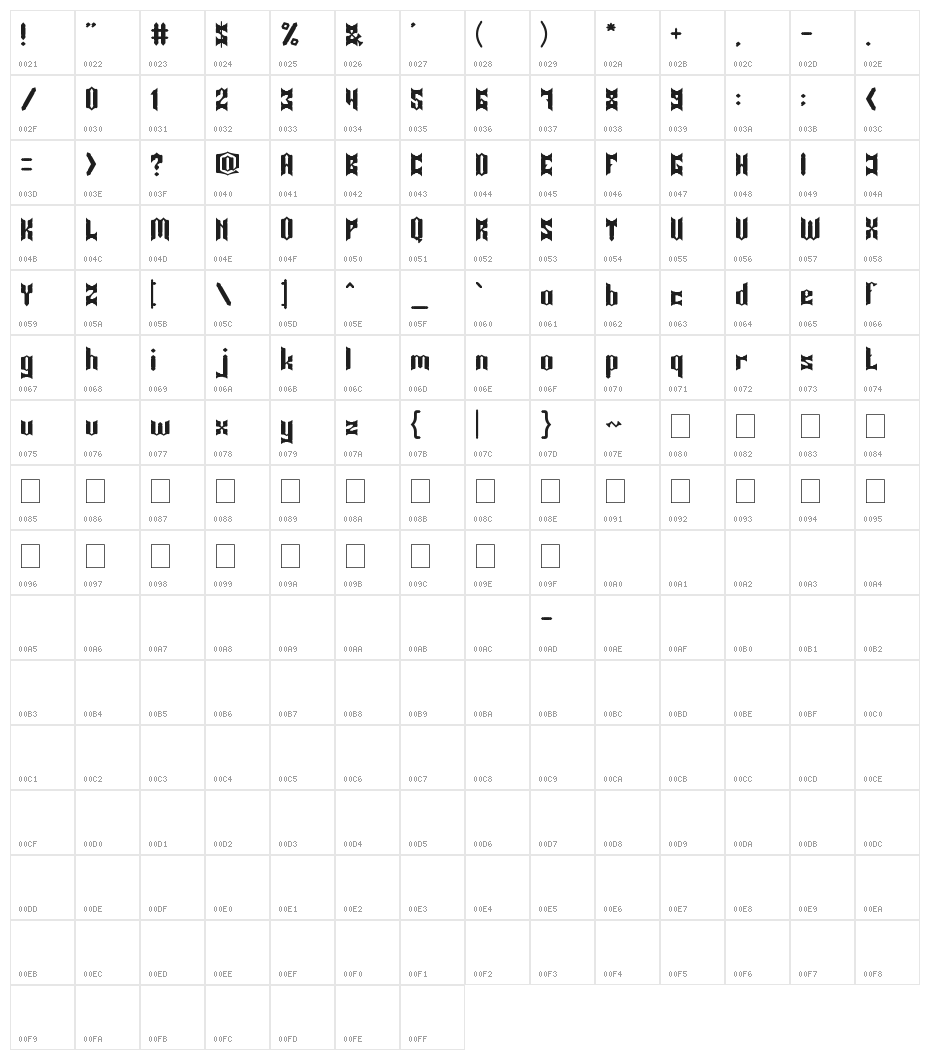
Knight of Light Font
Knight of Light Description
This font features a bold and dramatic style, reminiscent of medieval or gothic script. The characters are sharply angular with pointed serifs and a strong vertical emphasis, giving them a commanding presence. The uppercase letters are particularly striking, with intricate detailing that suggests a historical or fantasy theme. The lowercase letters maintain the same boldness, ensuring consistency across text. Numbers and special characters are equally robust, designed to stand out with their unique shapes. This font is ideal for creating a sense of tradition and strength, making it suitable for projects that require a touch of the dramatic or historical.
Overall StyleGothic, Medieval
Proposed ProjectsIdeal for fantasy book covers, medieval-themed events, or historical documentaries.